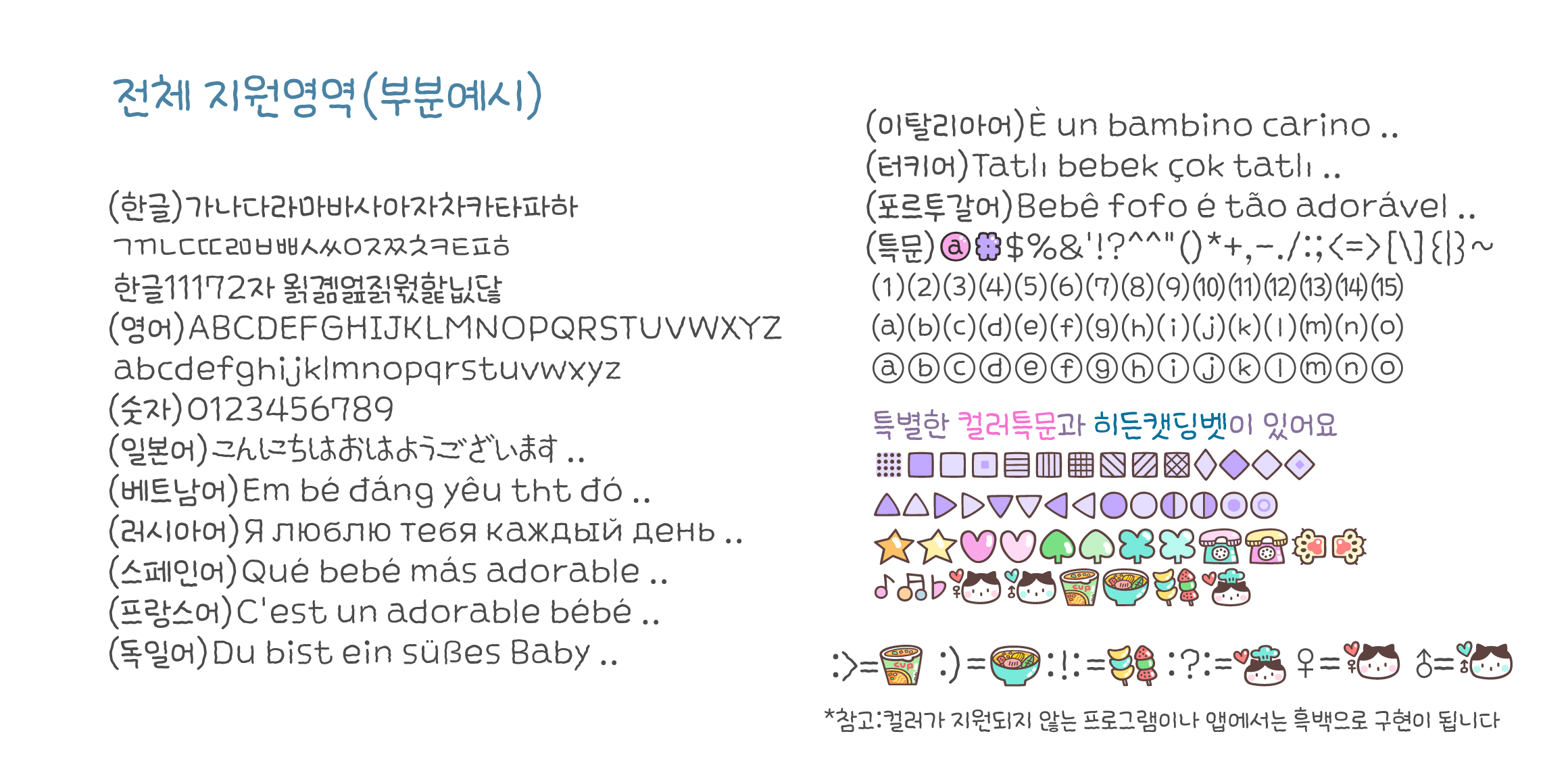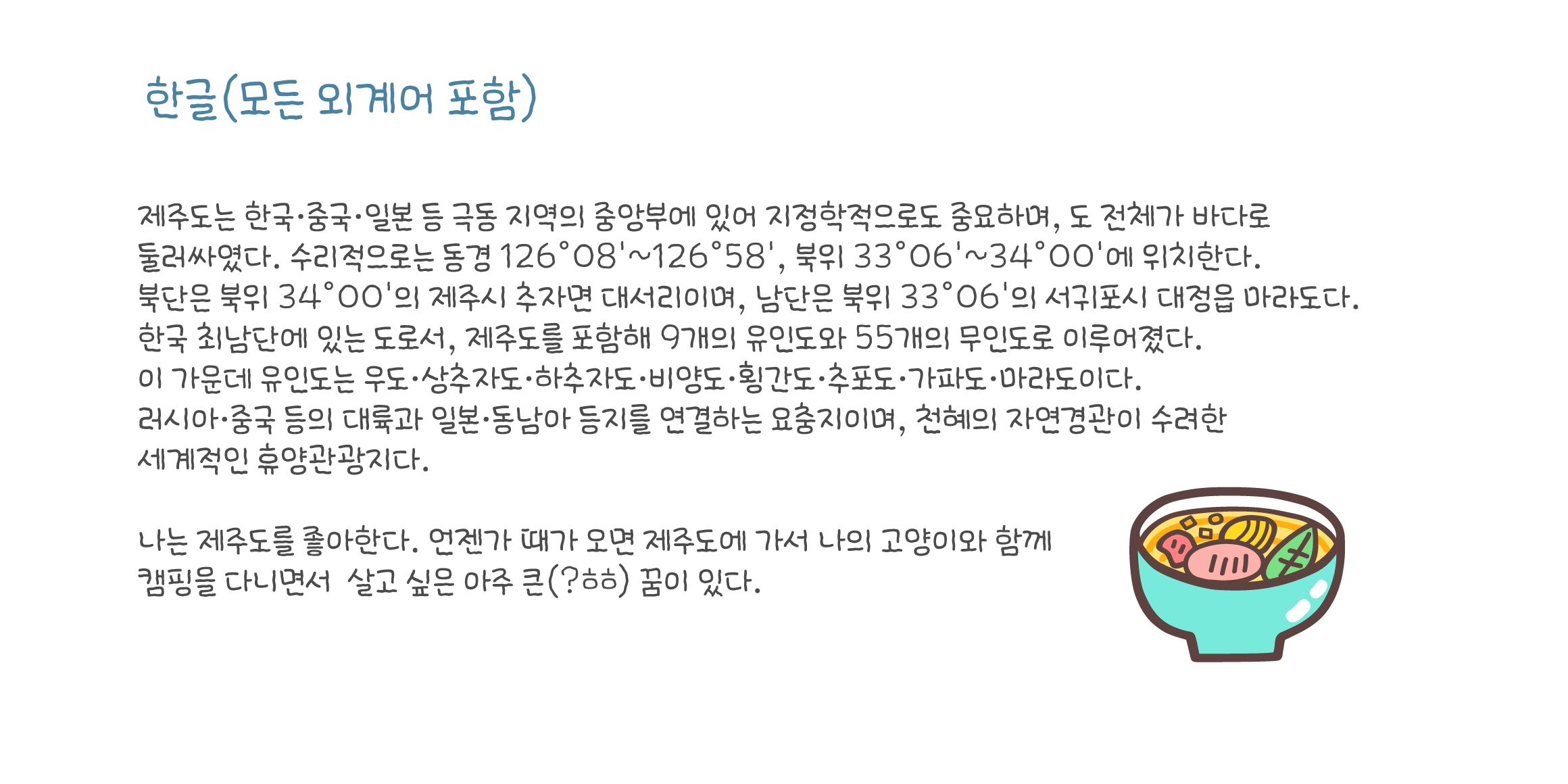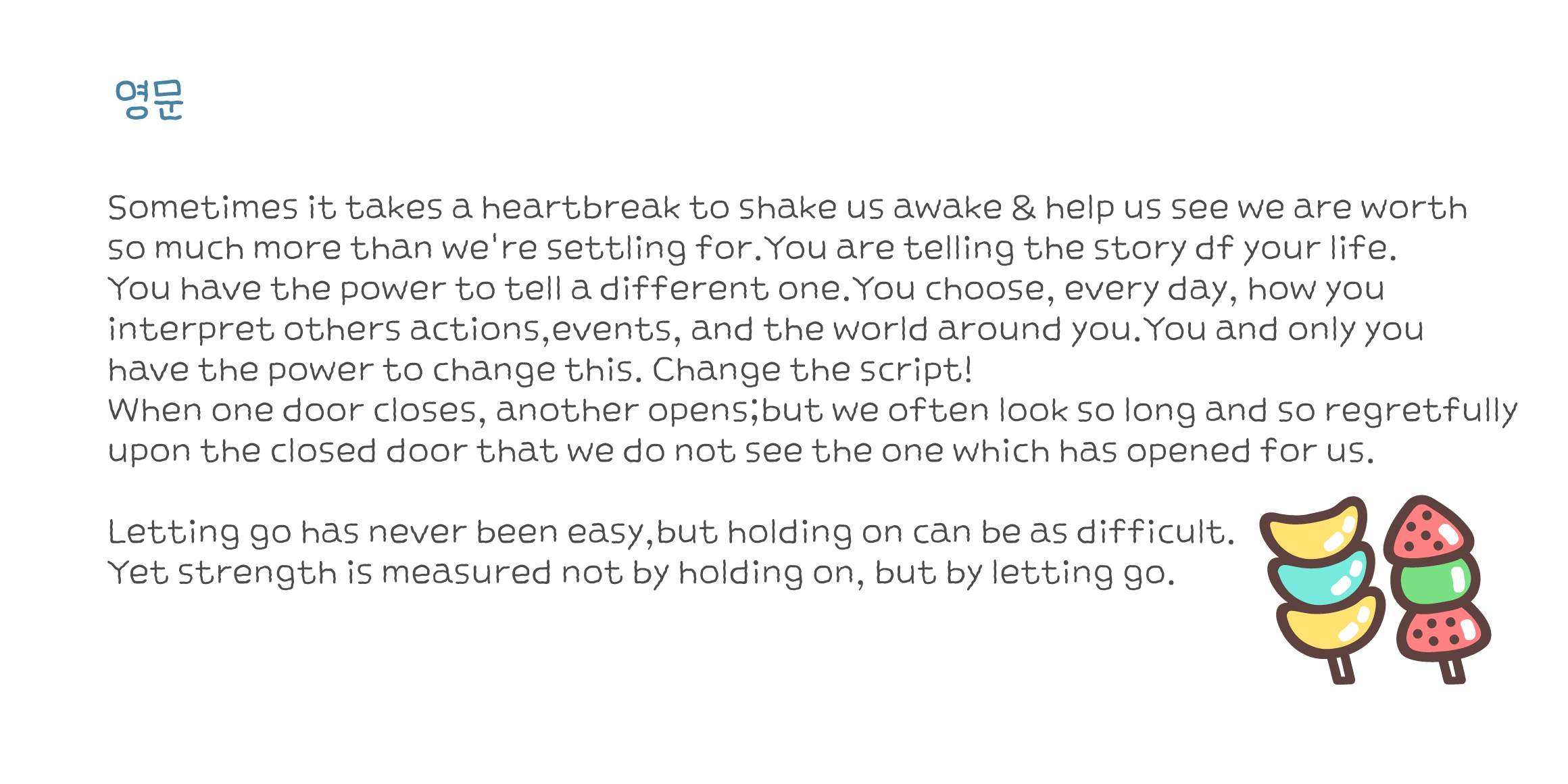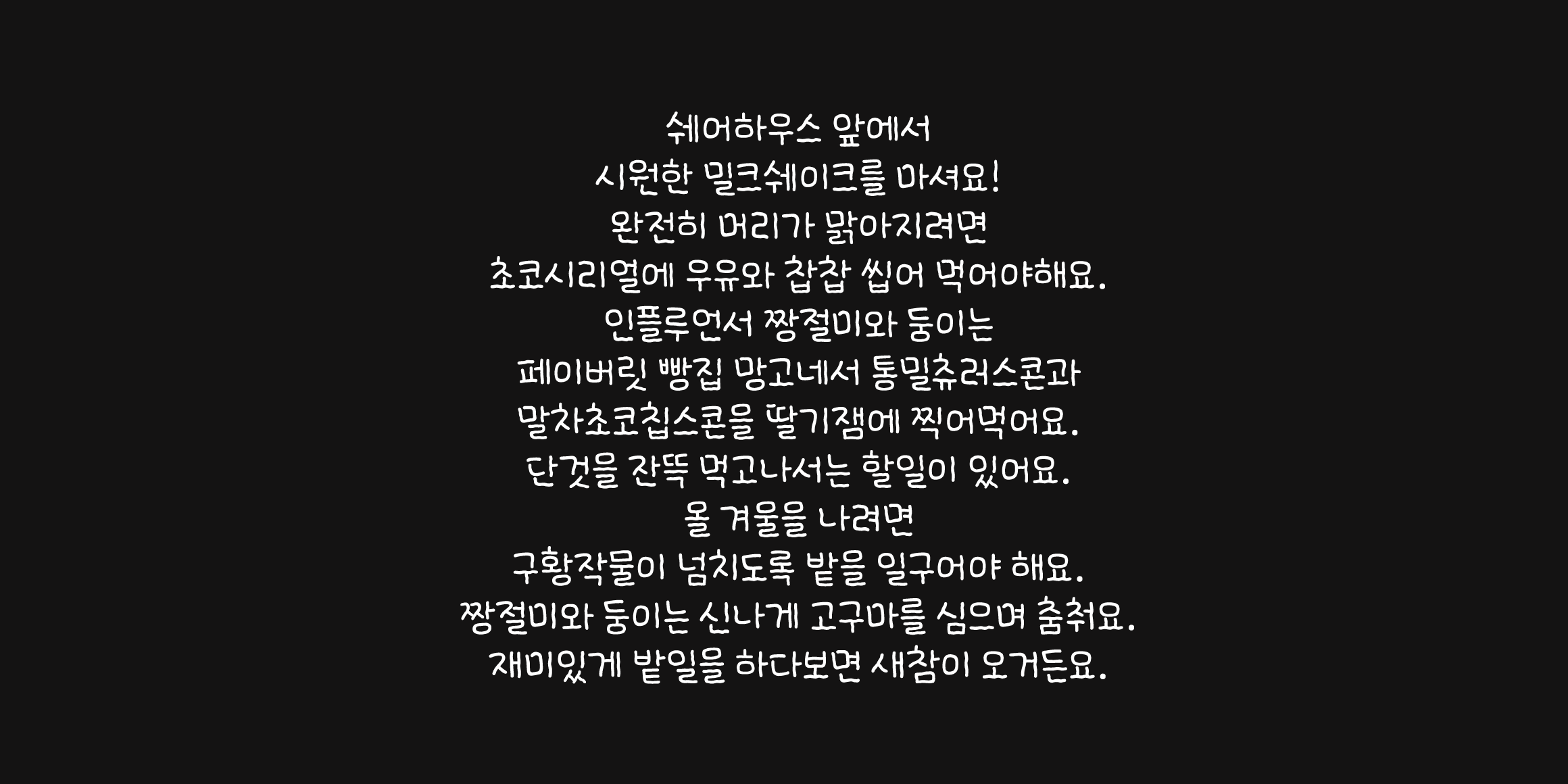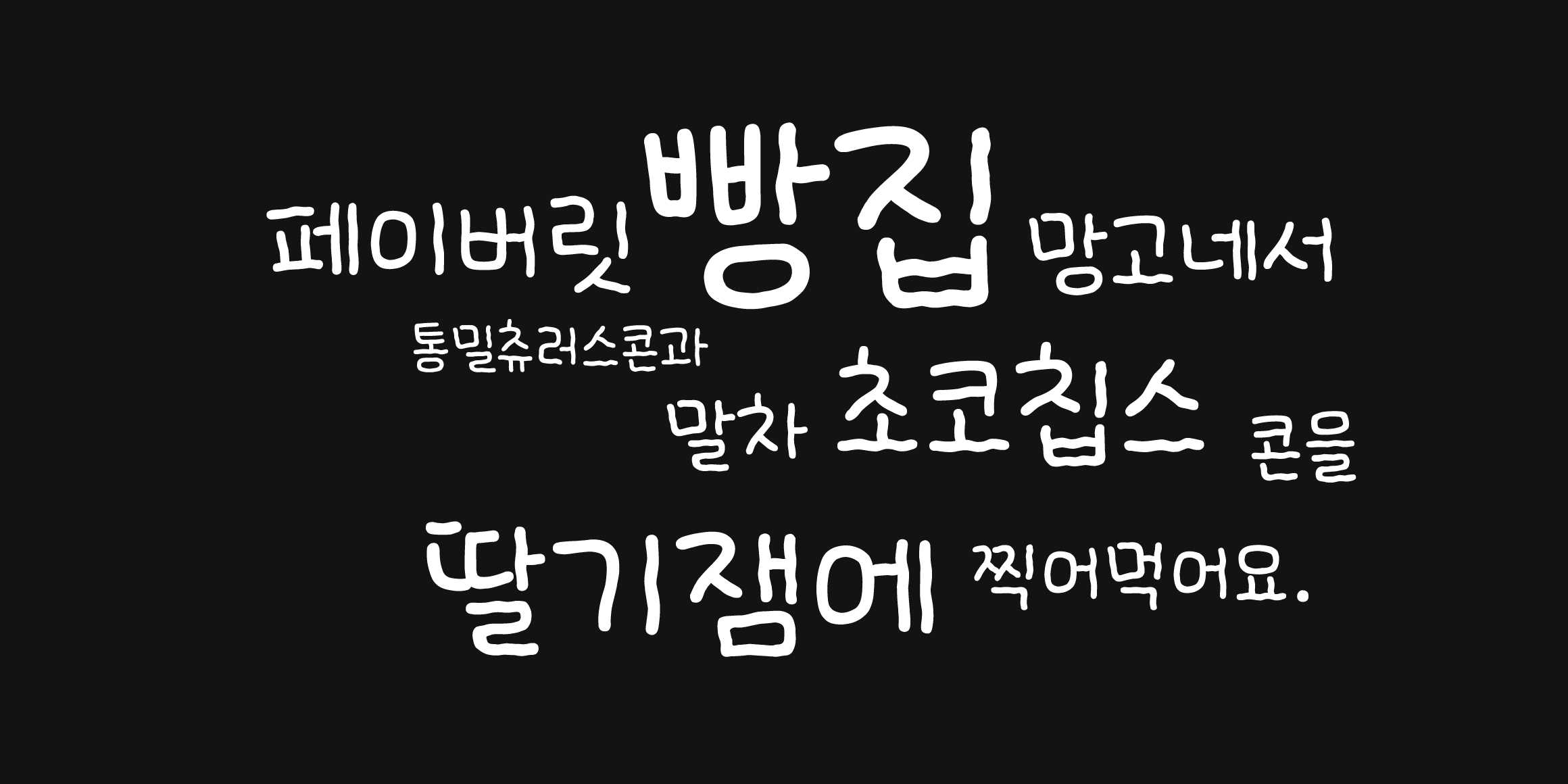
(CatFont Season2 font)
A slightly thinner version of "CatCupMaTang".
If you're looking for your own stress-busting food...
This font comes to mind when I think of cup ramen, mala-tang, and tang-hulu.
Including English, Japanese, and Vietnamese.
It also supports the languages of various European countries.
It supports a wide range of languages and special characters.
♥ Keyboard : ! : and : ? : and ; ) and ; > If you type in a row,
Cat Font's unique dingbet is hidden.
♥ Including English, Japanese, and Vietnamese,
Germany, France, Russia, Italy, Portugal, Spain, Turkey, etc.
It also supports the languages of various European countries.
It supports a wide range of languages and special characters.